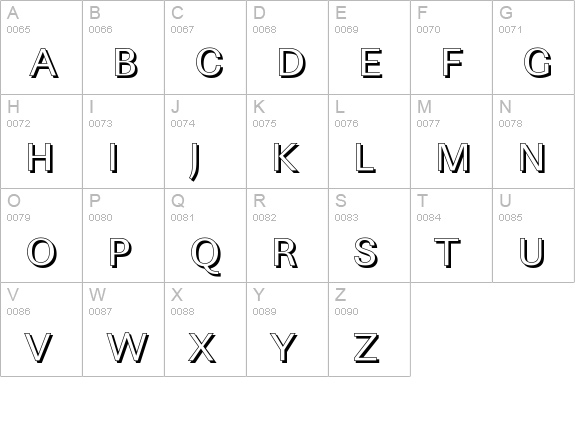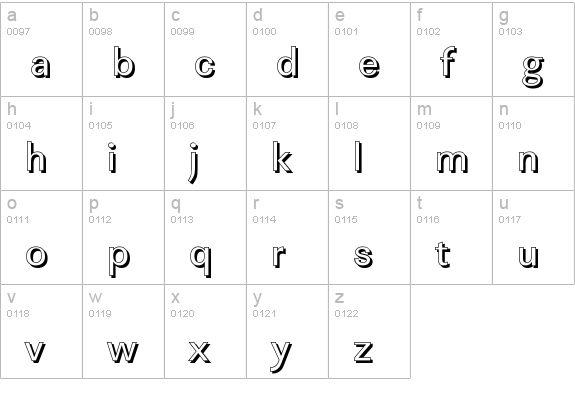
LinearSh-Regular is the standard, neutral variant in the LinearSh typeface family \xE2\x80\x94 well suited to general body text, paragraphs, and standard typographic work.
LinearSh-Regular font is a sleek and modern typeface that exudes elegance and sophistication. Its clean lines and sharp edges make it perfect for a wide range of design projects, from branding to editorial layouts. The font's precise geometry gives it a professional and polished look, making it ideal for both digital and print designs. What sets LinearSh-Regular font apart is not just its stunning aesthetics, but also the fact that it is free to download. That's right - you can get your hands on this stylish font without spending a dime. Simply head over to FontsMarket.com and download LinearSh-Regular to elevate your designs to the next level. Whether you're working on a website, a magazine layout, or a branding project, LinearSh-Regular font will bring a touch of sophistication and refinement to your work. Don't miss out on this fantastic opportunity to enhance your designs with a high-quality, free font like LinearSh-Regular.